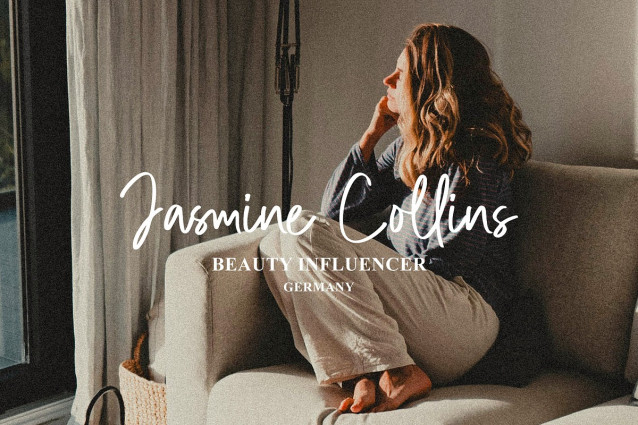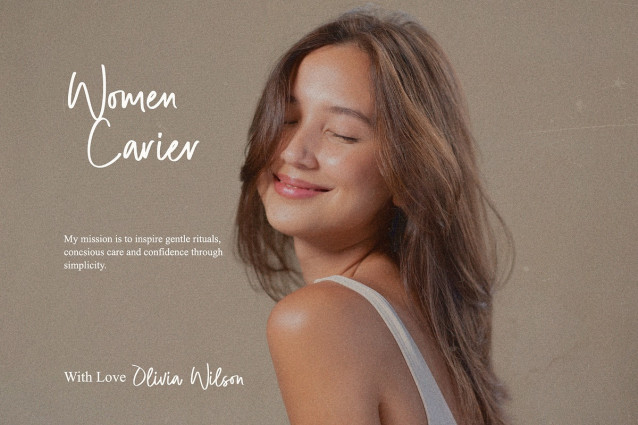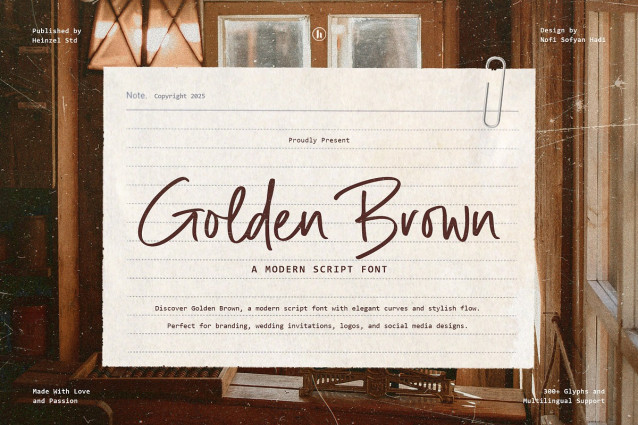
Golden Brown Script Font
Golden Brown Script Font is a modern script font that blends elegance with a warm, handwritten charm. Featuring smooth curves, natural strokes, and stylish flow, this font delivers a refined yet friendly feel. Its graceful letterforms make Golden Brown perfect for branding projects, wedding invitations, logos, packaging, quotes, and social media designs. Designed to feel personal and expressive, Golden Brown adds a timeless and sophisticated touch to any creative work while remaining easy to read and visually appealing.